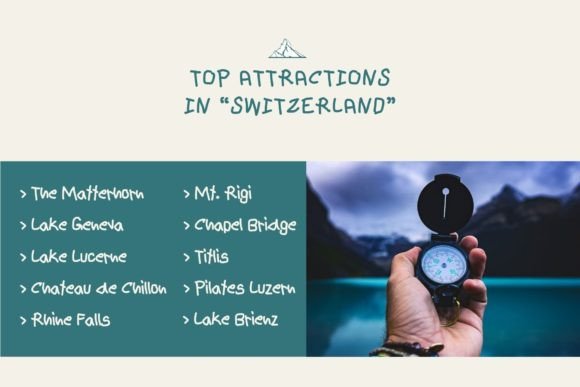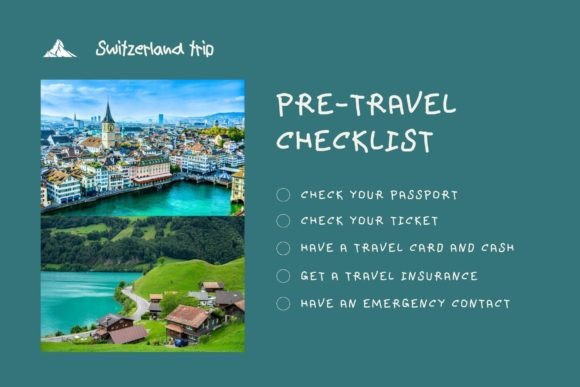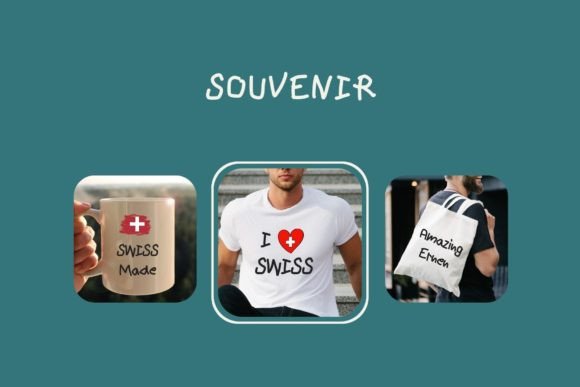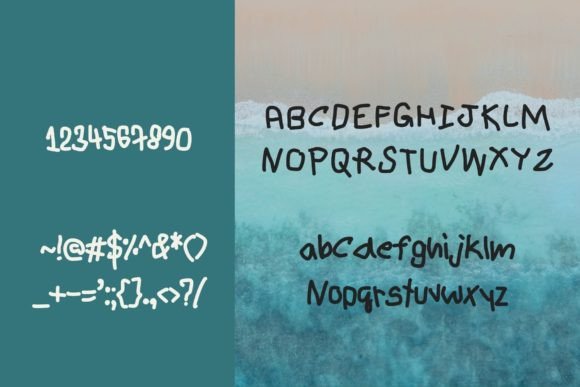
Introducing Ernen Font: The Perfect Handwritten Script for Fun and Friendly Designs
Are you a designer or crafter looking for a unique and playful font to add a personal touch to your artwork? Look no further than Ernen Font, a handwritten script font that’s perfect for creating fun and friendly designs. In this article, we’ll dive into the features and benefits of Ernen Font, and explore the many ways you can use it to bring your creative projects to life.
What is Ernen Font?
Ernen Font is a carefully crafted handwritten script font that’s designed to capture the essence of inelegant handwriting. With its playful and carefree vibe, this font is ideal for adding a touch of whimsy to your designs. Whether you’re creating digital art, crafting physical products, or designing marketing materials, Ernen Font is the perfect choice for anyone looking to add a bit of personality to their work.
Key Features of Ernen Font
- Handwritten script font: Ernen Font is a genuine handwritten script font, carefully designed to mimic the imperfections and quirks of real handwriting.
- Fun and friendly artwork: With its playful and carefree vibe, Ernen Font is perfect for creating fun and friendly artwork that’s sure to delight.
- Versatile design: Ernen Font can be used for a wide range of design projects, from digital art to physical products, and everything in between.
- Easily readable: Despite its handwritten nature, Ernen Font is surprisingly easy to read, making it perfect for designs that require a personal touch.
Uses for Ernen Font
So, what can you create with Ernen Font? The possibilities are endless! Here are just a few ideas to get you started:
- T-shirt design: Add a playful touch to your t-shirt designs with Ernen Font’s fun and quirky script.
- Mugs and ceramics: Create unique and personalized mugs, water bottles, and ceramics with Ernen Font’s friendly vibe.
- Wall art: Use Ernen Font to create eye-catching wall art, from inspirational quotes to fun and playful designs.
- Bags and crafts: Add a personal touch to your bags, journals, and crafts with Ernen Font’s handwritten script.
- Digital designs: Use Ernen Font in your digital designs, from social media graphics to presentations and more.
- Digital planners and bullet journals: Add a touch of personality to your digital planners and bullet journals with Ernen Font.
- Greeting cards and invitation cards: Create unique and personalized greeting cards and invitation cards with Ernen Font.
- Sublimation: Use Ernen Font in your sublimation designs, from t-shirts to ceramics and more.
Why Choose Ernen Font?
So, why should you choose Ernen Font for your design projects? Here are just a few reasons:
- Unique and playful: Ernen Font offers a unique and playful vibe that’s sure to set your designs apart.
- Easily customizable: With its handwritten script, Ernen Font is easily customizable to fit your design needs.
- High-quality design: Ernen Font is carefully crafted to ensure high-quality design and readability.
- Versatile: Ernen Font can be used for a wide range of design projects, from digital art to physical products.
In conclusion, Ernen Font is a versatile and playful handwritten script font that’s perfect for designers and crafters looking to add a personal touch to their artwork. With its unique and friendly vibe, Ernen Font is ideal for creating fun and friendly designs that are sure to delight. Whether you’re creating digital art, crafting physical products, or designing marketing materials, Ernen Font is the perfect choice for anyone looking to add a bit of personality to their work.